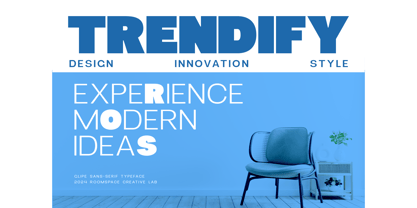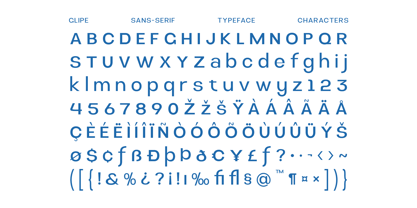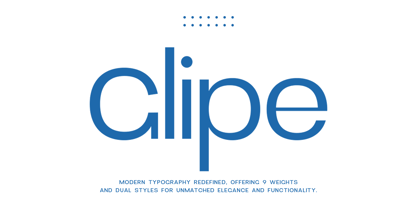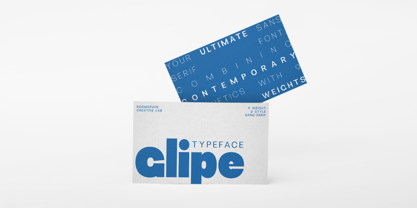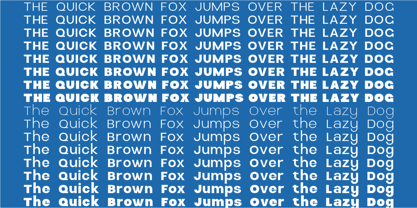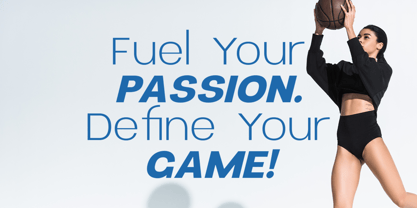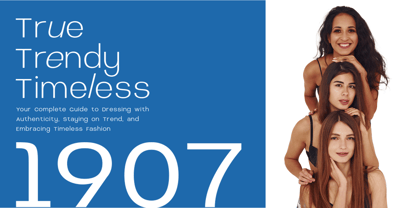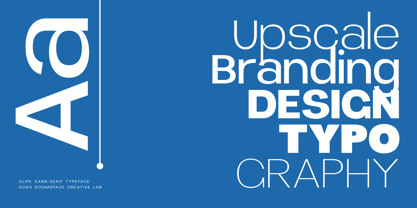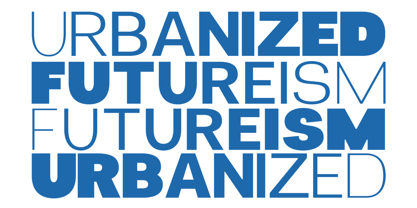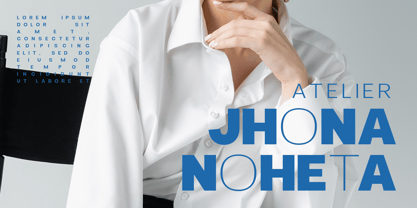
Glipe
The Glipe Font Family was designed by Bakhrudin Ja'far and published by Jafar07. Glipe contains 18 styles and family package options.
Glipe, a cutting-edge sans-serif typeface crafted for versatility and modern appeal. Glipe features an impressive 18 styles, including 9 weights ranging from Thin to Black, each paired with a corresponding Oblique style. This extensive range makes Glipe the perfect choice for various design needs, from lightweight and subtle text to bold, commanding headlines.
Glipe’s thoughtfully designed styles include Thin, Extra Light, Light, Regular, Medium, Semi Bold, Bold, Extra Bold, and Black, each available in both standard and oblique options. Whether you're designing minimalist branding, professional presentations, sleek UI/UX layouts, or elegant editorial projects, Glipe adapts effortlessly to any creative challenge.
With its clean lines, modern proportions, and versatile variations, Glipe redefines sans-serif typography for the contemporary designer. Ideal for logos, branding, web design, packaging, and headlines, Glipe provides endless possibilities for creating impactful, timeless designs. Download Glipe today and let your creativity shine with this sophisticated and comprehensive font family.